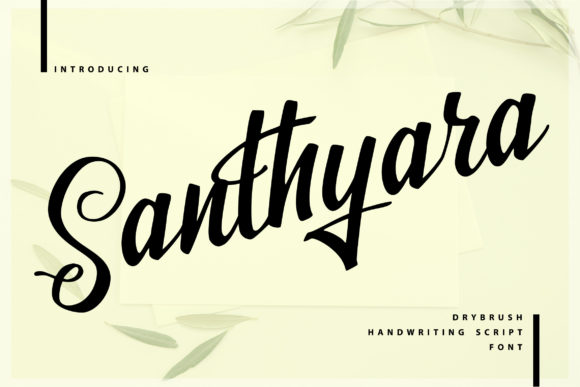
Unleash Your Inner Artist with Santhyara Script: The Epitome of Cool Fonts for Tattoos
Prepare to be mesmerized as you immerse yourself in the world of Santhyara Script, a captivating handwritten font that will elevate your designs to unparalleled heights. Every stroke and curve exudes an air of sophistication and grace, seamlessly blending the timeless essence of calligraphy with a modern, cutting-edge aesthetic.
Santhyara Script is more than just a font; it's an expression of individuality, a creative tool that empowers you to transform your visions into stunning realities. Whether you're a seasoned tattoo artist seeking to expand your artistic repertoire or a design enthusiast yearning for a touch of flair, this remarkable font is your gateway to limitless possibilities.
Indulge in the artistry of Santhyara Script and let your imagination soar. Craft tattoos that captivate and inspire, leaving an indelible mark on the skin. Design logos that radiate elegance and sophistication, capturing the essence of your brand with unforgettable style. Create social media posts and marketing materials that stand out from the crowd, attracting attention and sparking conversations.
The possibilities are endless with Santhyara Script at your fingertips. Embrace the power of self-expression and let your creativity flourish. Experience the joy of bringing your ideas to life with a font that's as versatile as it is captivating.